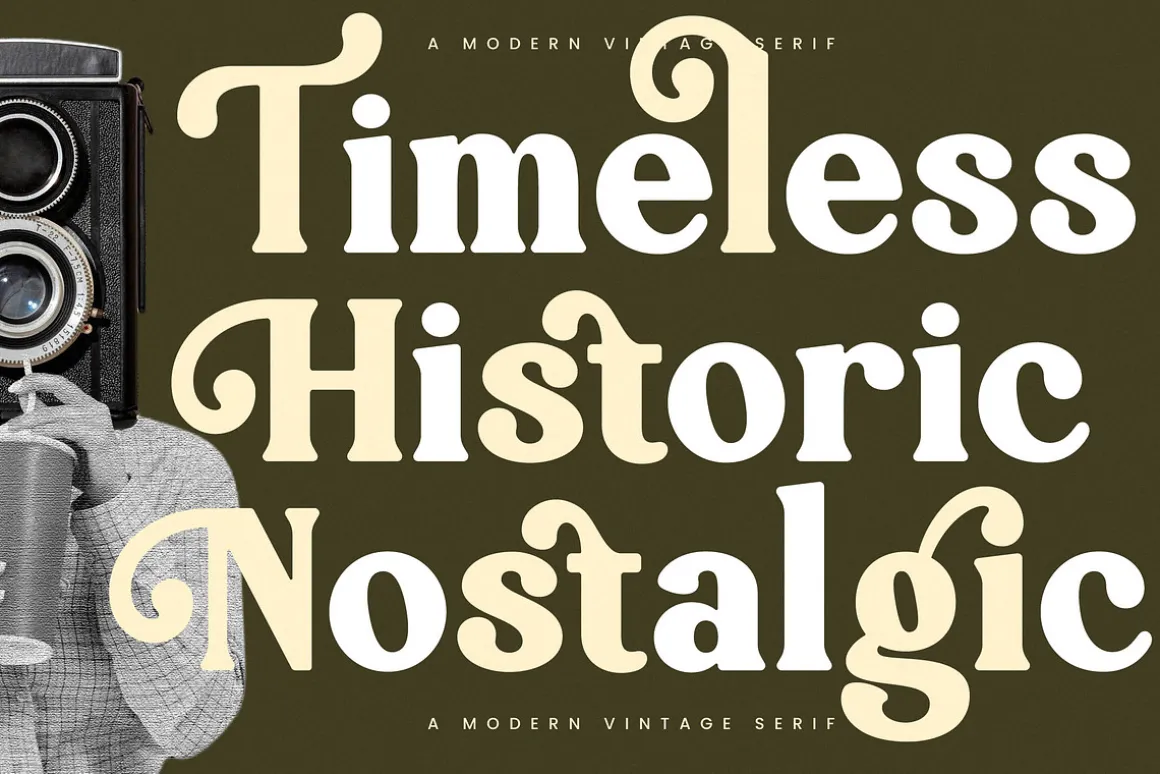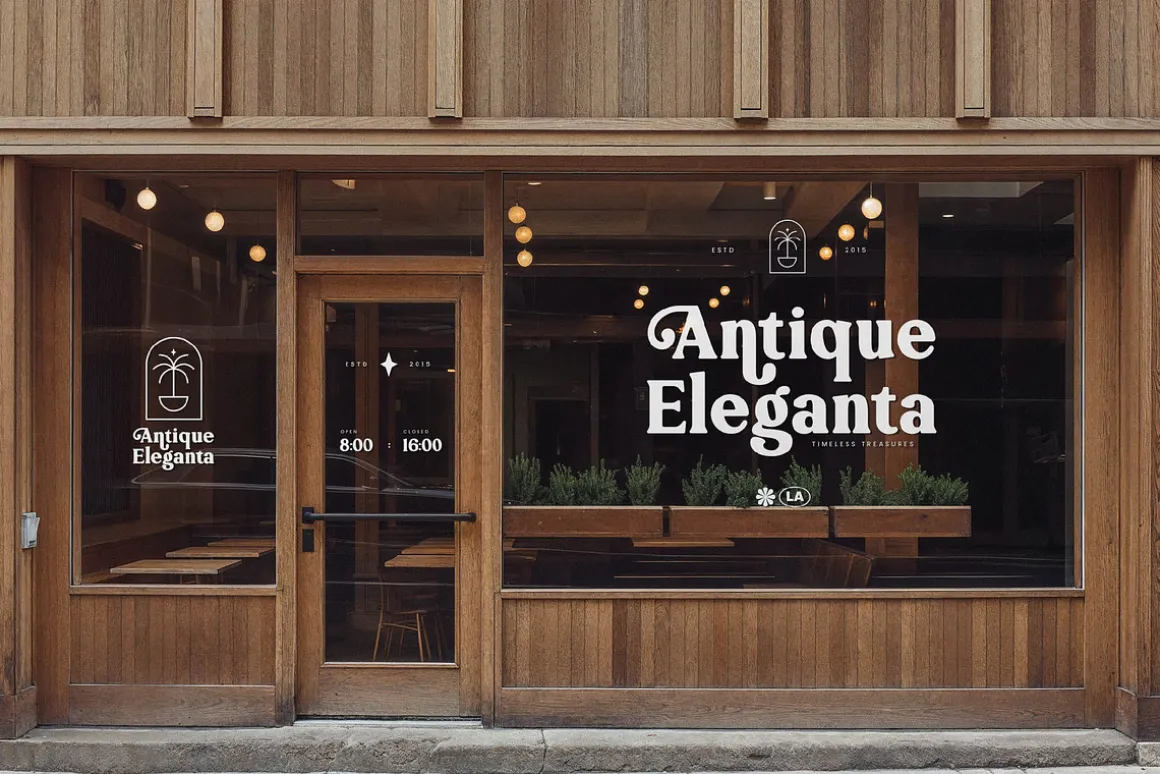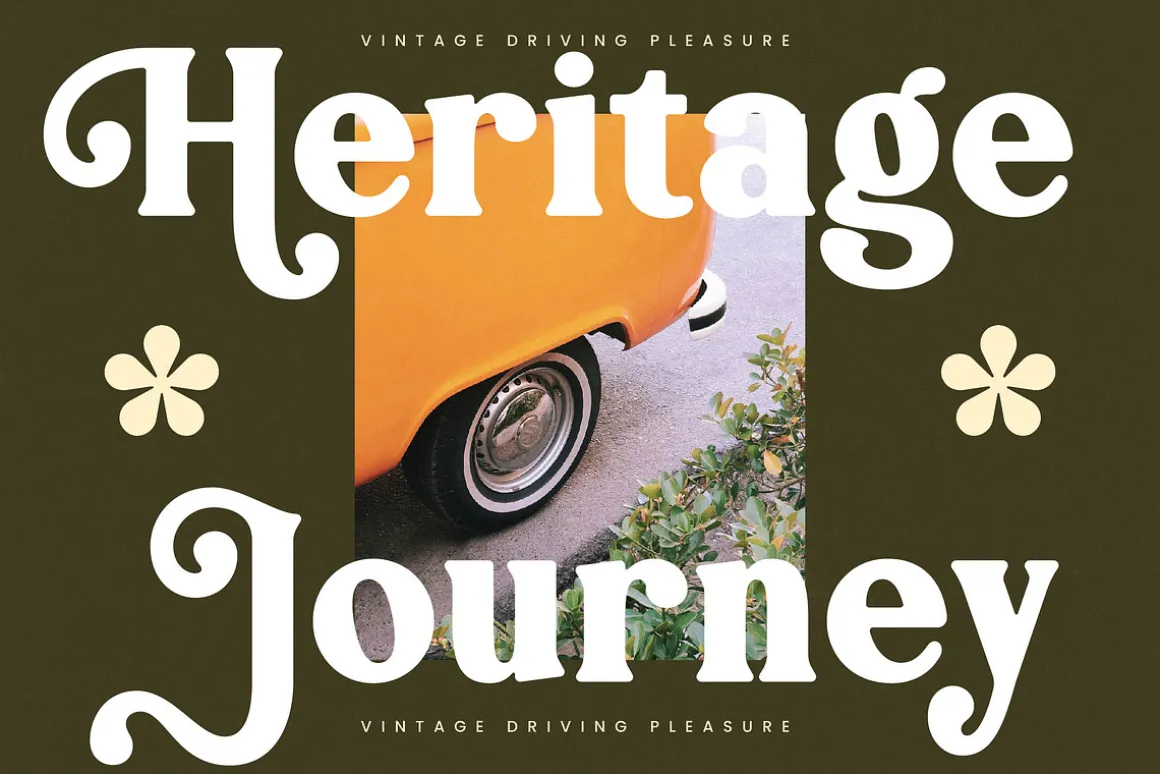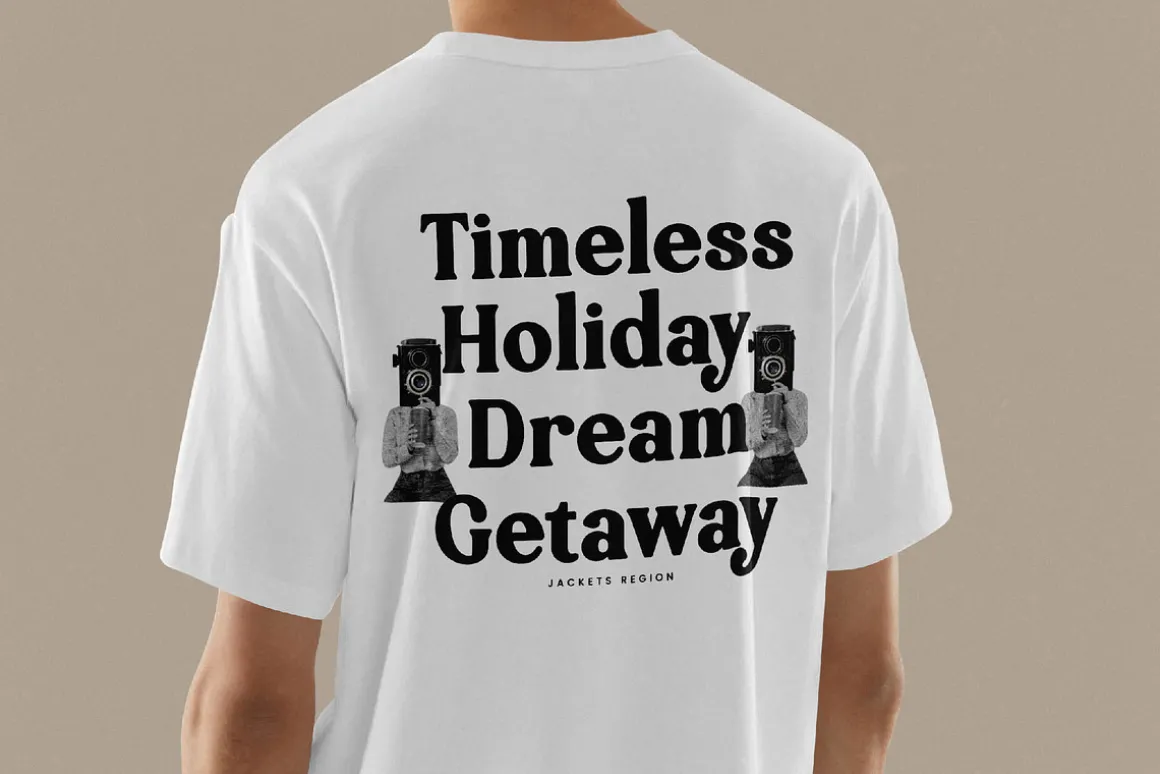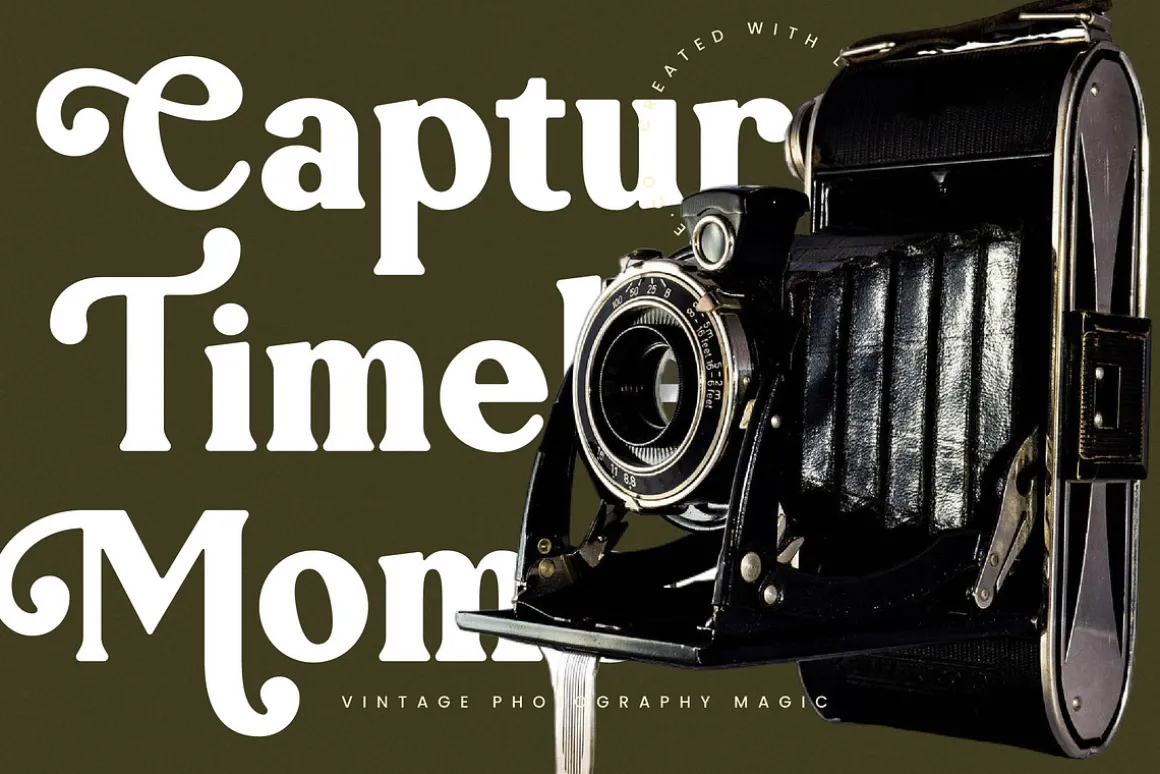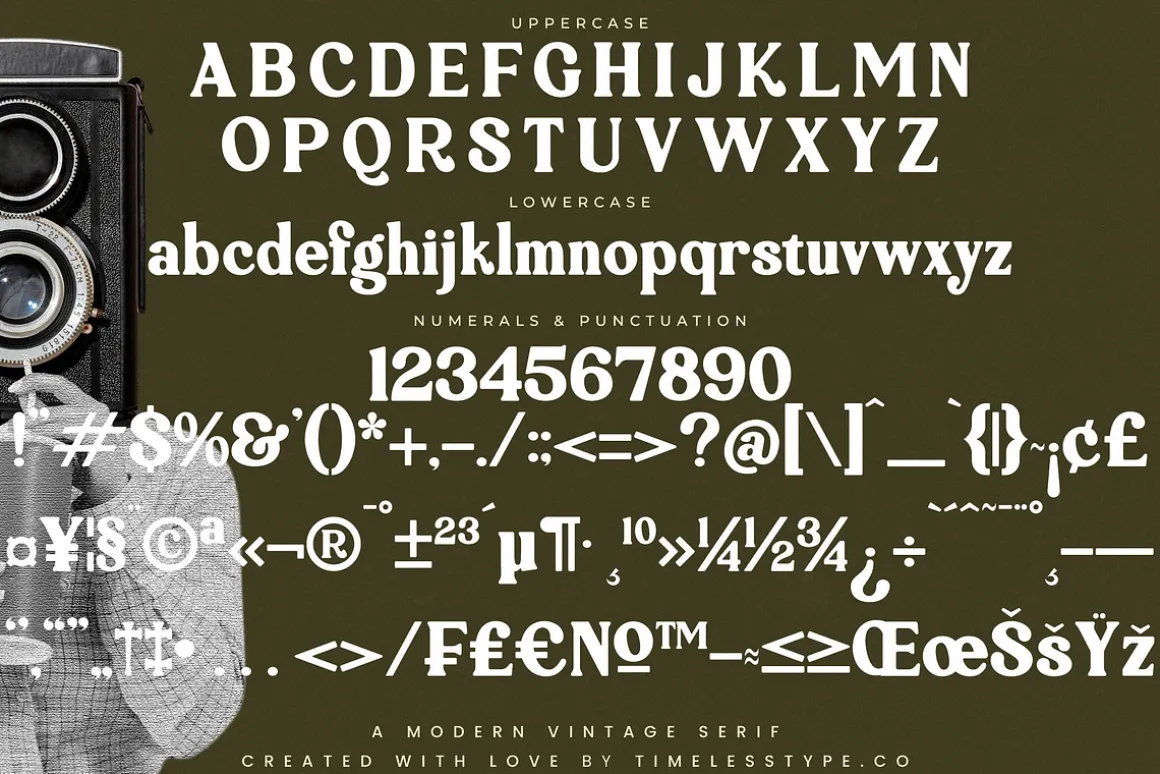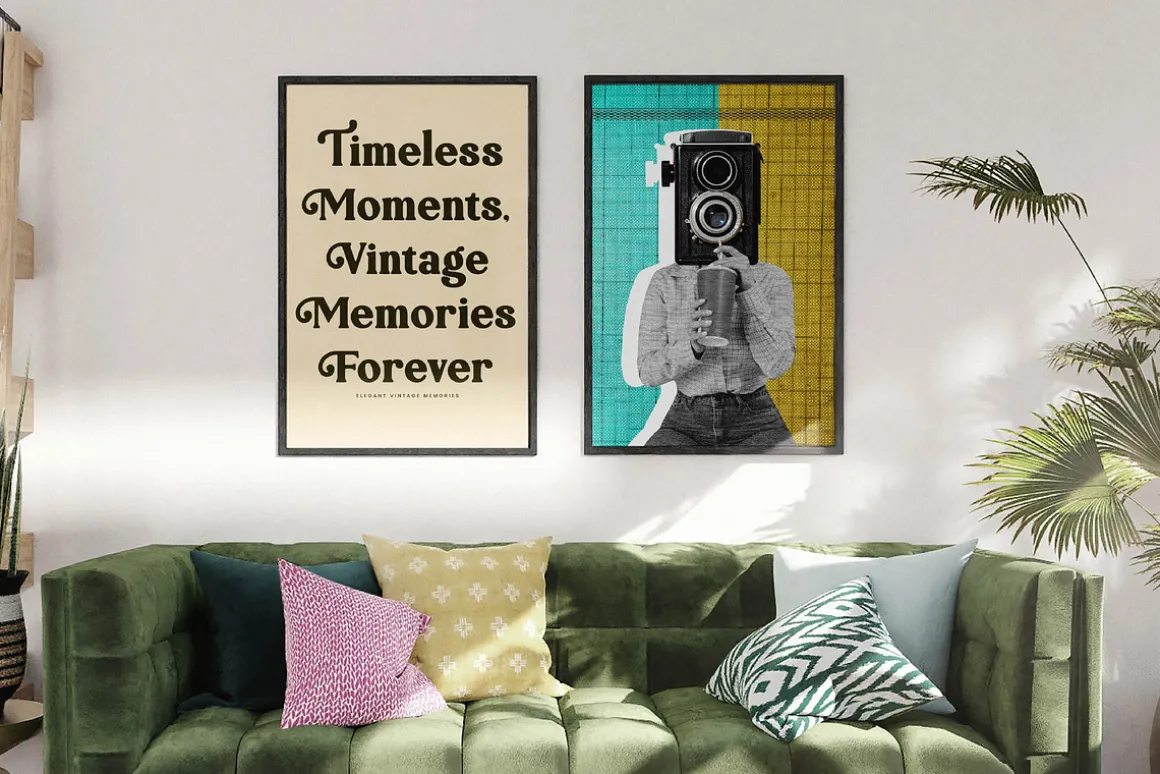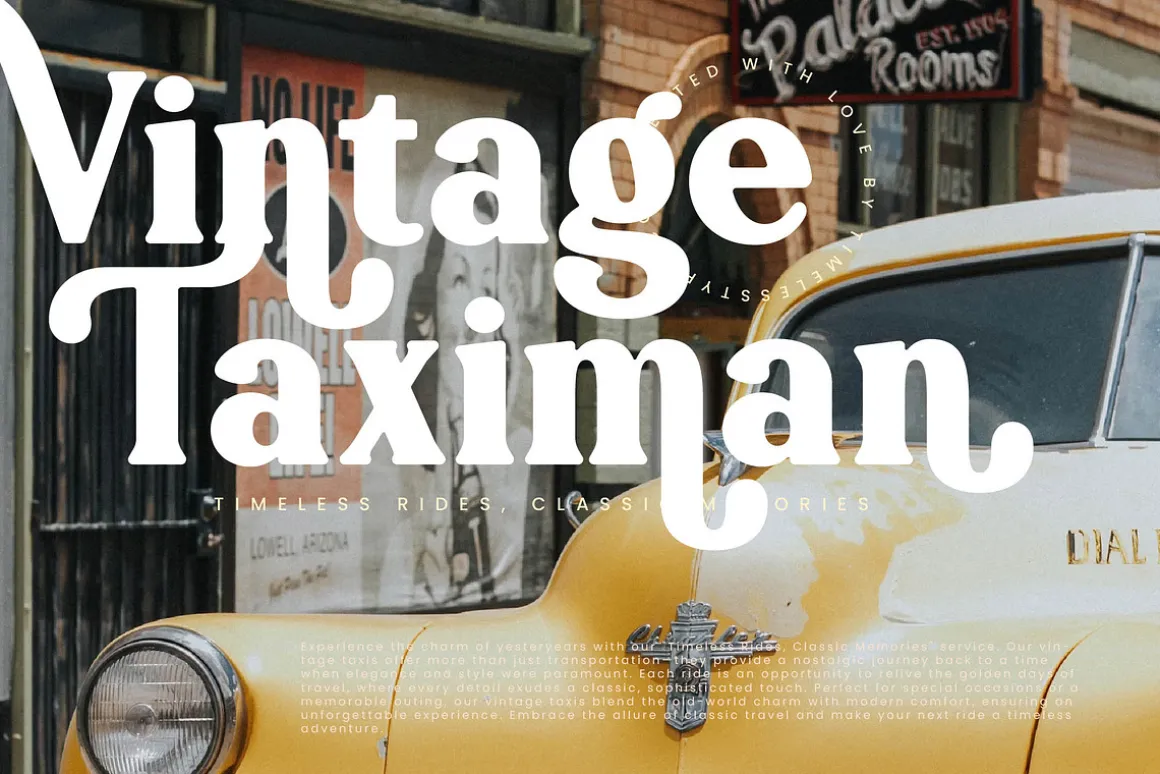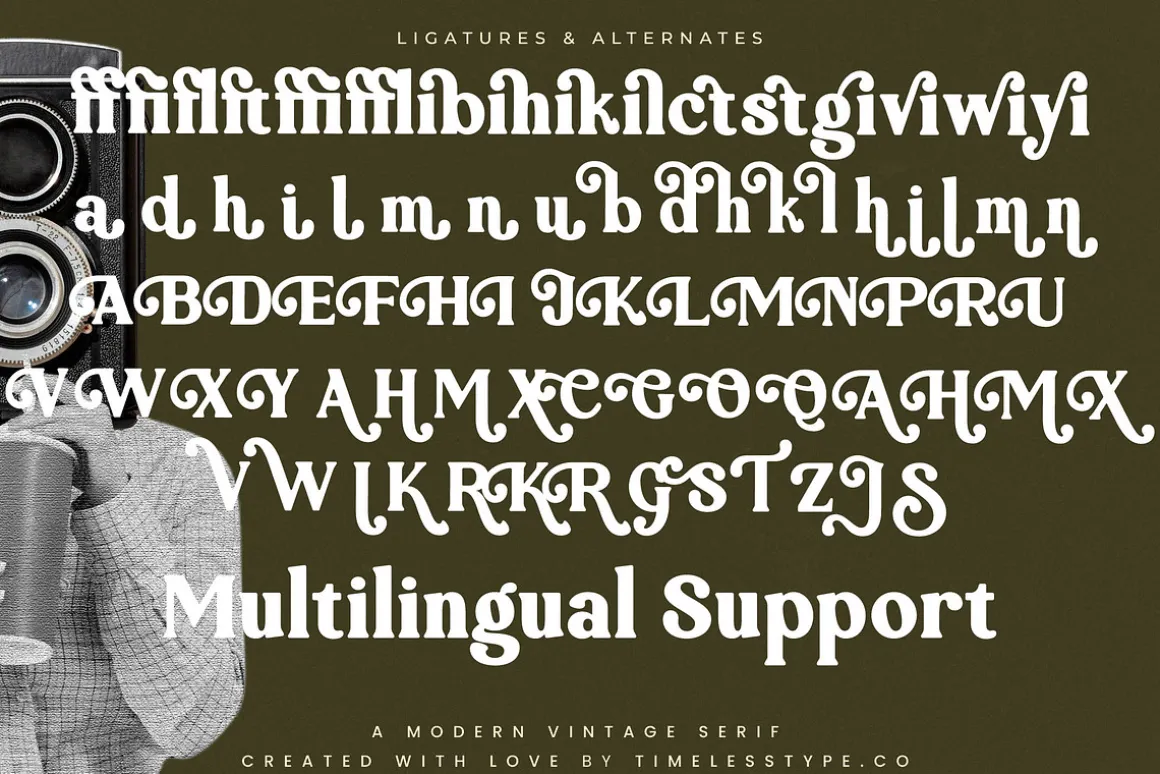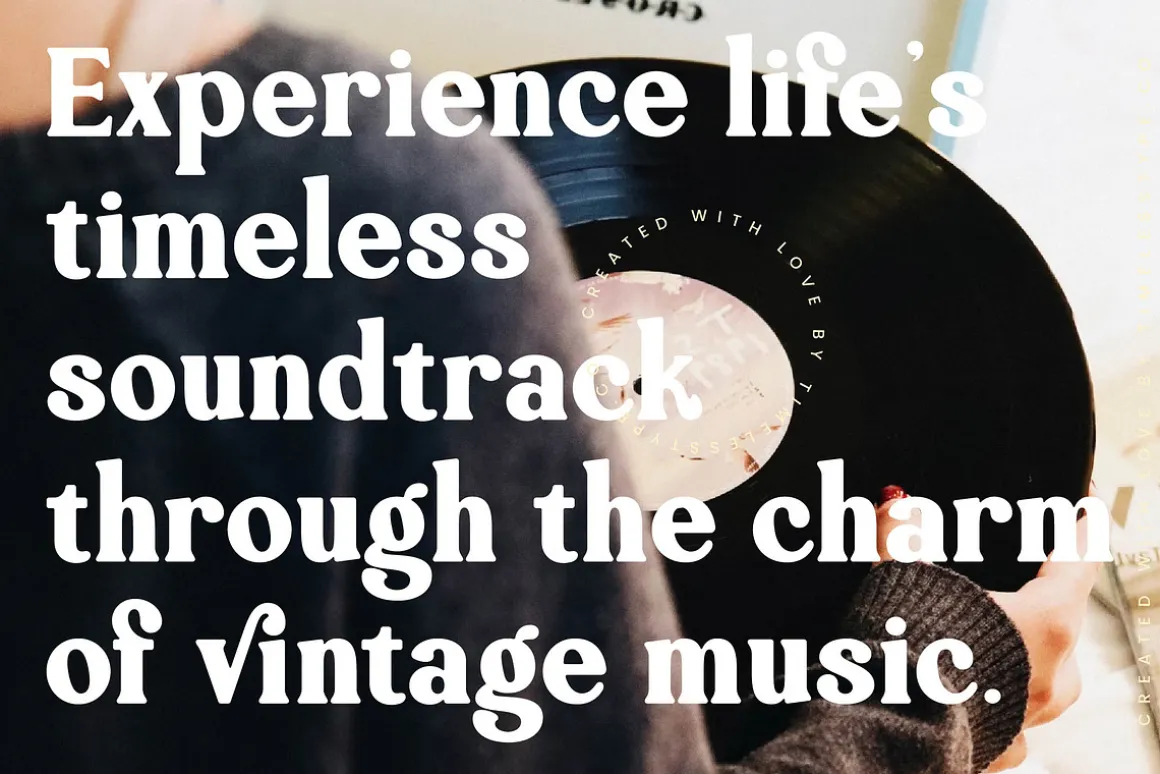
Jackets Region captures the soulful essence of a bygone era, blending timeless elegance with a contemporary edge that demands attention. It is a typeface designed for those who seek to tell a story through every stroke and curve.
Inspired by the sun-drenched grain of 35mm film and the effortless cool of vintage road trips, this font evokes a sense of nostalgic freedom. It draws from the heritage of mid-century editorial design while maintaining a crisp, polished finish.
Boasting a high-contrast serif profile, this modern serif display typeface exudes a confident yet graceful personality. Its luxury typography feel is perfect for creating a bold editorial font presence or establishing a lasting branding impact.
Aligning perfectly with the modern serif trend, this typeface addresses the growing demand for character-driven typography. It stands at the forefront of editorial display fonts, offering a unique alternative to traditional classics for a more bespoke aesthetic.
This versatile typeface excels in logo design and high-end branding projects where identity is paramount. Its sophisticated nature makes it ideal for editorial layouts, luxury packaging, romantic wedding stationery, and fast-paced fashion lookbooks.
Included are extensive ligatures, creative alternates, and decorative swashes that allow for custom typographic flourishes. Full multilingual support and international characters ensure your message reaches a global audience with premium flair.